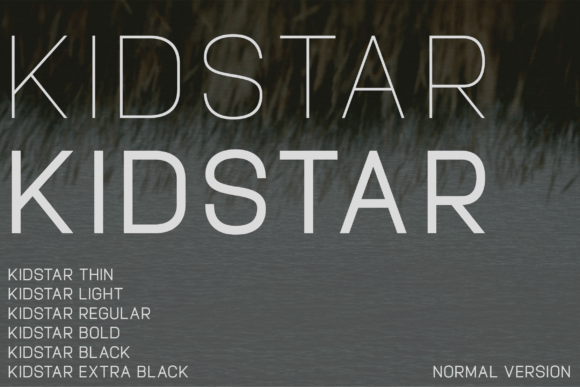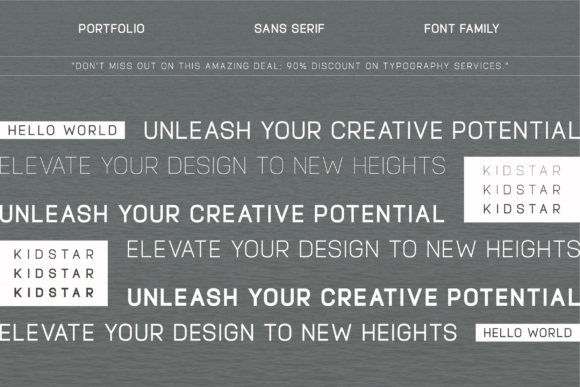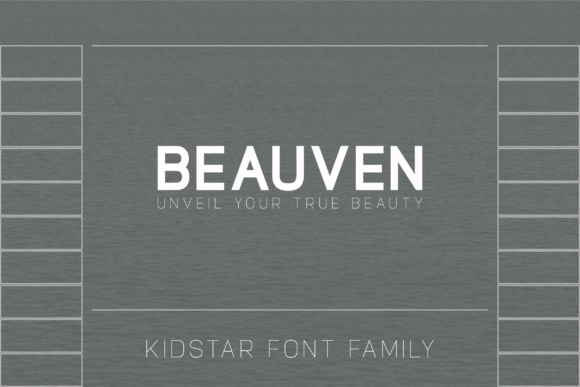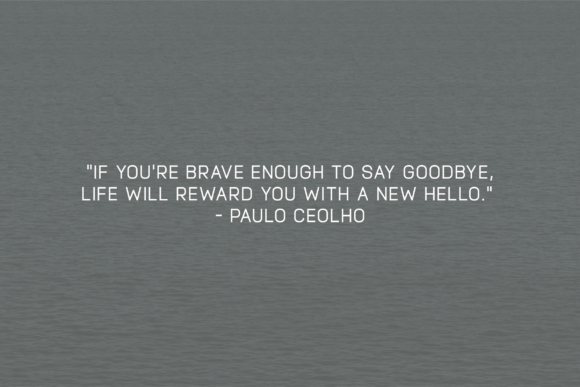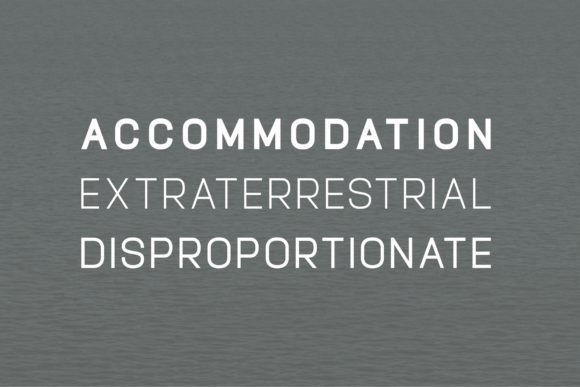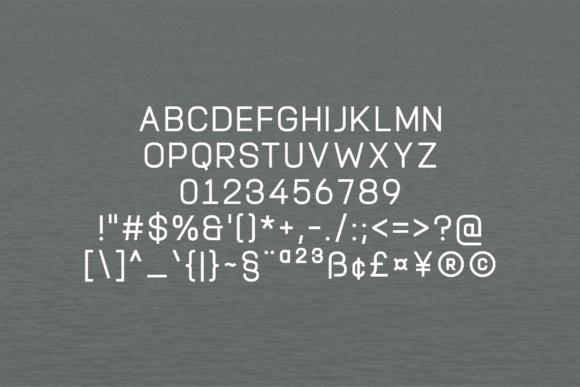
The Perfect Font for the Modern Designer
Have you ever found yourself staring at a blank screen, desperately searching for the perfect font to bring your design to life? We’ve all been there – the endless scrolling through font libraries, the frustration of finding something that’s almost, but not quite, right. But what if I told you there’s a font that can solve all your design woes?
Introducing the Kidstar Font, a stunning sans serif collection that’s poised to revolutionize the world of design. With 5 distinct weights, this exquisite font family effortlessly combines modernity and luxury, making it the perfect addition to any project – from magazine spreads to film posters. Whether you’re a seasoned designer or just starting out, the Kidstar Font is an invaluable tool that’s sure to elevate your designs to new heights.
Kidstar Font Key Features
- Font Family: Kidstar Font is a child-friendly sans-serif font designed for readability and fun.
- Unique Characteristics: Kidstar Font features rounded edges, friendly letterforms, and an open design, making it perfect for children’s books, educational materials, and family-friendly branding.
Kidstar Font Review
I recently had the chance to work with the Kidstar Font, and I must say it’s an interesting choice for a children’s font. ✨ One thing I appreciate about Kidstar is its playful and whimsical feel, which makes it perfect for creating a fun and engaging atmosphere in children’s books, websites, or other materials.
Here are some of the things I like about Kidstar:
- ✨ Its bold and colorful appearance adds a lot of visual interest.
- ✨ The font is highly customizable, allowing you to adjust the size, color, and even the spacing between letters.
- ✨ Kidstar is available in a range of weights, from light to bold, giving you plenty of options for creating contrast and emphasis.
However, there are some limitations to keep in mind:
- ⚠️ The font may not be suitable for formal or professional contexts, as its playful nature can come across as unprofessional.
- ⚠️ Kidstar may not be as legible at smaller font sizes, which could make it difficult to read in certain situations.
- ⚠️ Some users may find the font too childish or immature, which could limit its appeal.
Overall, I think Kidstar is a great choice for designers looking to create a fun and engaging atmosphere for children. While it may have some limitations, its versatility and customizability make it a valuable addition to any designer’s toolkit.
Practical Application Guide for Kidstar Font
Tips for Getting the Most Out of Kidstar Font
For the best results, use Kidstar Font in bold or italic styles to add emphasis.
Pair it with simple backgrounds and bright colors to make your design stand out.
Experiment with different font sizes to create visual hierarchy.
Kidstar Font is ideal for children’s books, educational materials, and family-friendly designs.
Use it to create playful invitations, party decorations, or even social media graphics.
Its friendly and approachable style makes it perfect for brands targeting young audiences.
Alternatives to Kidstar Font for Designers
Compared to Kidstar Font, Great Vibes is more cursive and less cartoonish. While Kidstar Font has a childlike charm, Great Vibes Font has a more relaxed, laid-back vibe.